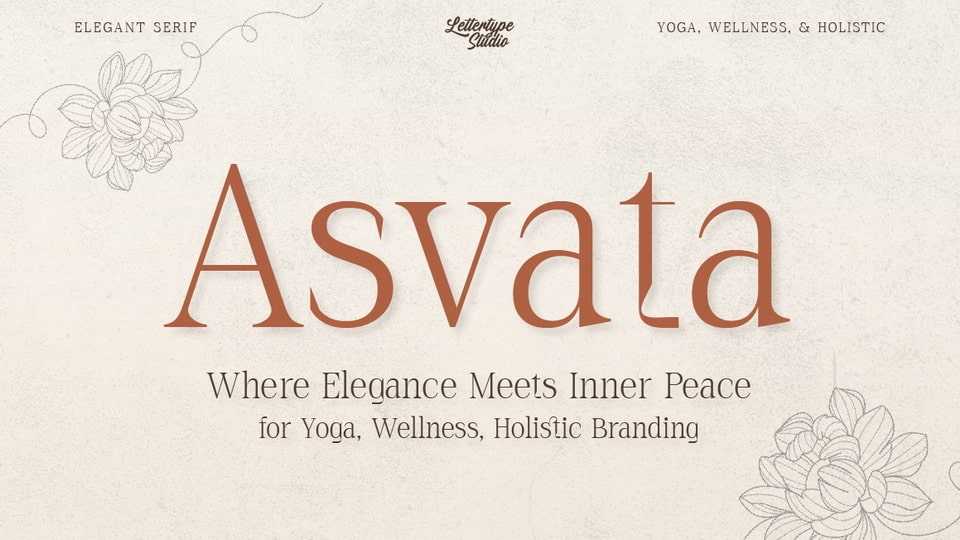
Download Asvata font, a timeless serif typeface with organic curves, refined contrast, and a tranquil presence rooted in elegance and spiritual depth.